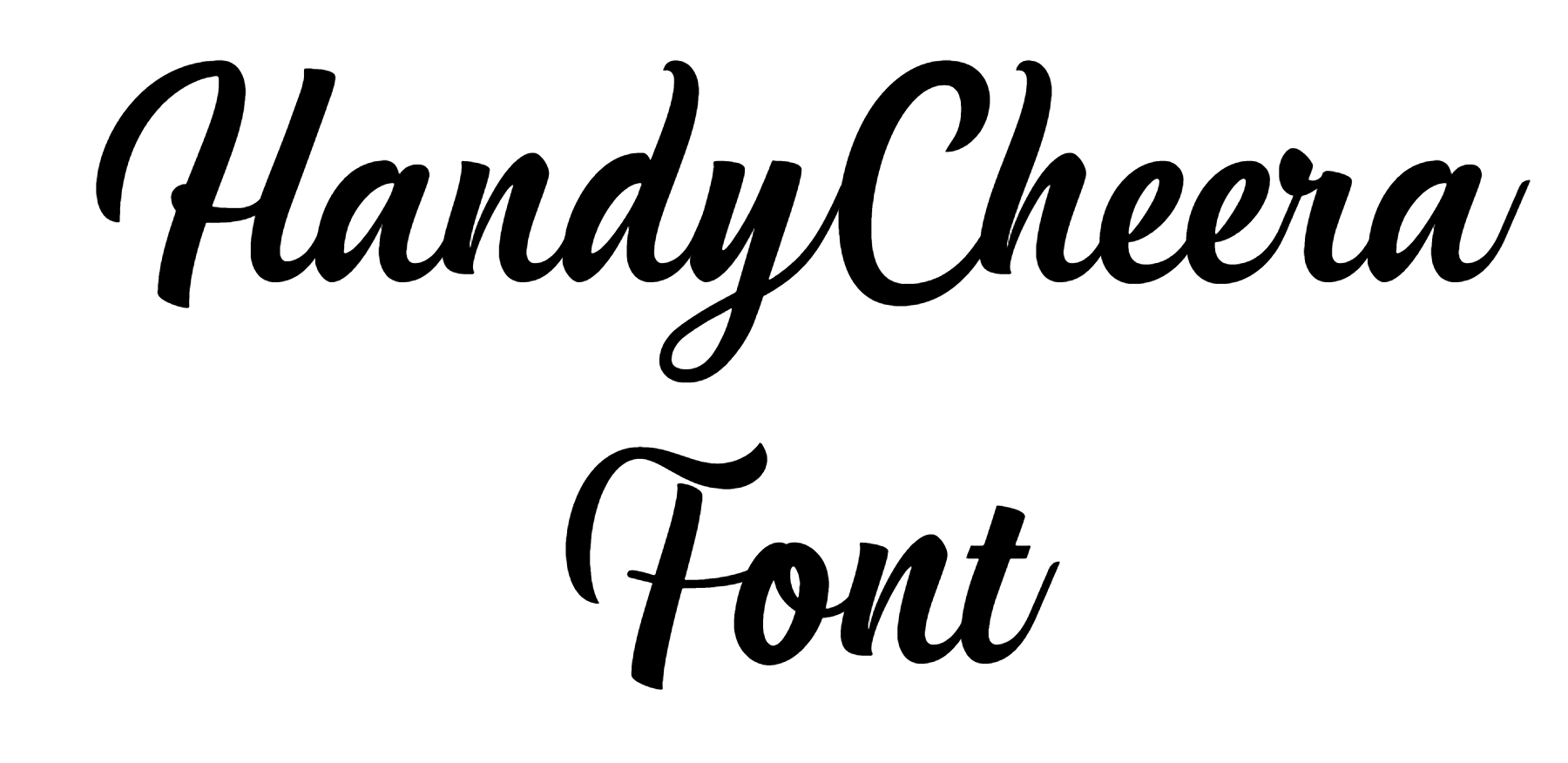
HandyCheera
HandyCheera is a calligraphy font designed by Situjuh Nazara (2016). It has that hand-lettered, flowing feel people look for when regular type seems too stiff. It's a free download, and you can try it with your own text in the preview above first.
- Designer: Situjuh Nazara
- Glyphs: 617
- OpenType features: Ligatures and 9 stylistic sets
- Extra characters: 178 copy-and-paste alternates (Private Use Area)
What You Can Type With HandyCheera
With complete upper and lowercase letters and all ten digits, HandyCheera is ready for real wording, not just a single headline. Common punctuation such as &, !, ? and @ is included as well. It also has the accented letters you need for Spanish, French, German, Portuguese and Italian.
Where HandyCheera Works Best
HandyCheera is a natural fit for wedding invitations, certificates and elegant quotes. Its lowercase letters are small compared to the capitals, so set it a size or two bigger than usual. Script fonts read best in short bursts, so keep it to names, titles and one-line quotes. Skip all caps: script capitals are drawn to start a word, not to fill one.
Does HandyCheera support accented letters?
Yes. HandyCheera includes the accented letters needed for Spanish, French, German, Portuguese and Italian, so it works for more than just English.